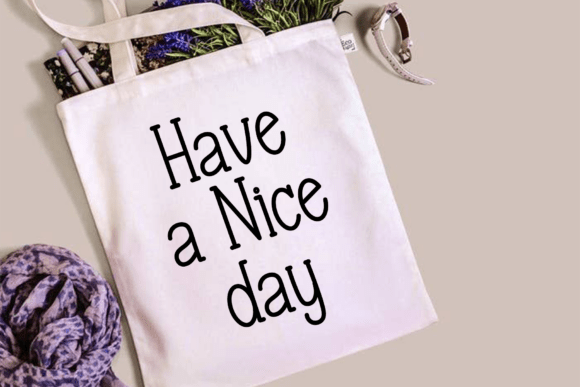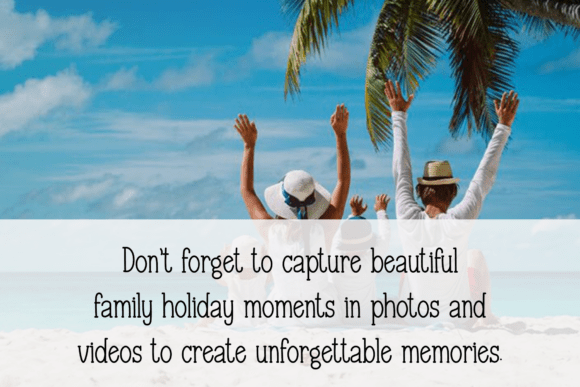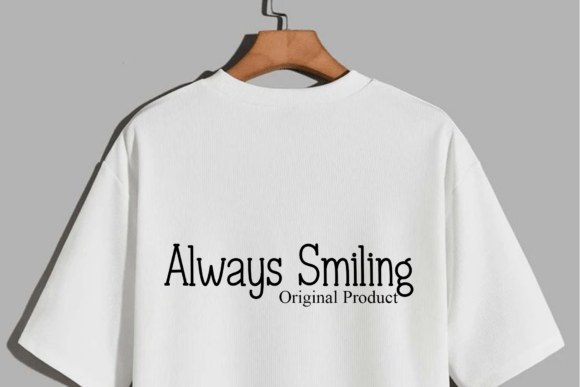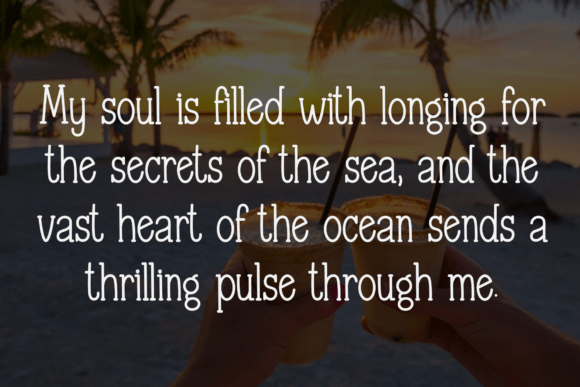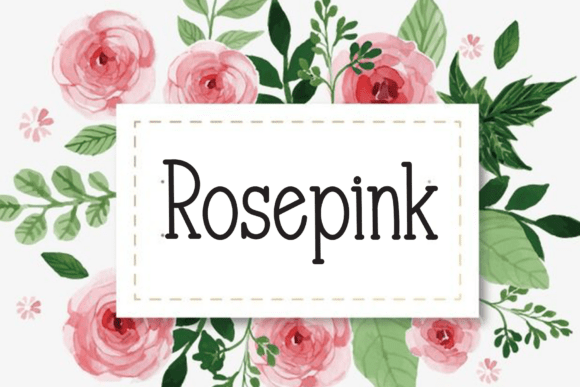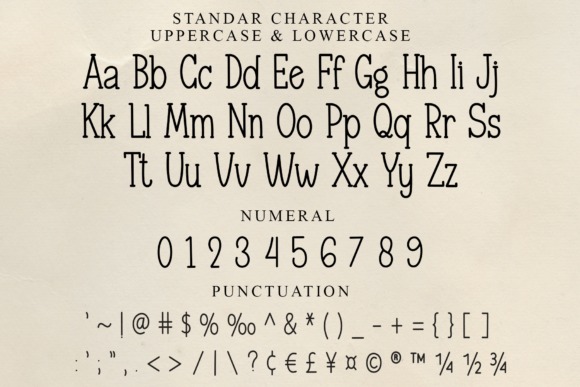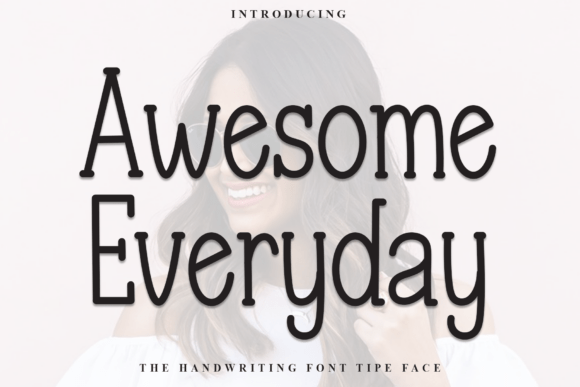
The Awesome Everyday Font: A Designer’s New Best Friend
I’ll never forget the time I was working on a project for a client’s birthday party invitation. I had the design concept all figured out, but I was stuck on finding the perfect font. I wanted something that would convey a sense of warmth and friendliness, but still be playful and fun. That’s when I stumbled upon the Awesome Everyday font, and it instantly became my go-to choice.
Awesome Everyday is a casual and creative font that exudes warmth and friendliness. Its round, playful strokes create a relaxed and approachable feel, perfect for personal projects, invitations, and social media graphics. The font’s charming, hand-drawn aesthetic adds a fun and unique touch to any design.
• ✨ The font’s unique and charming hand-drawn aesthetic
• ✅ Easy to read and understand, even in smaller sizes
• ✅ Perfect for personal projects, invitations, and social media graphics
⚠️ While the font is versatile, it’s not suitable for very formal or professional projects. The playful strokes and hand-drawn aesthetic may come across as too casual for certain designs.
🤔 Some users may find the font’s rounded edges and playful strokes too similar to other fonts, making it less distinctive in certain contexts.
The Designer Inspiration Behind Awesome Everyday
Awesome Everyday was designed with the intention of creating a font that’s both fun and functional. The designer wanted to create a font that would be perfect for everyday designs, from social media graphics to personal projects. The font’s charming, hand-drawn aesthetic was inspired by the designer’s love of hand-lettering and illustration.